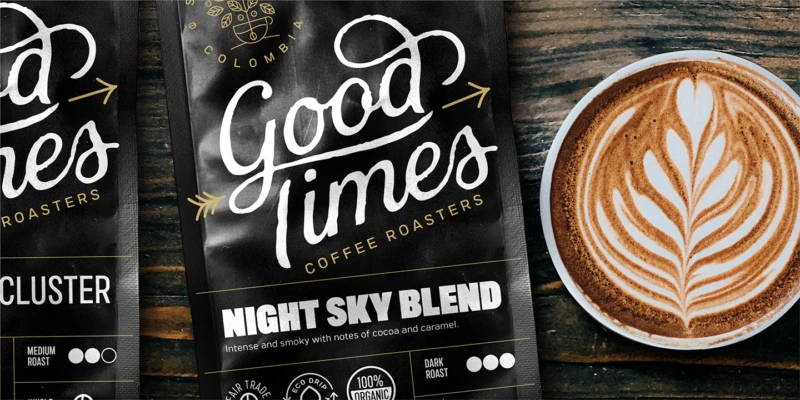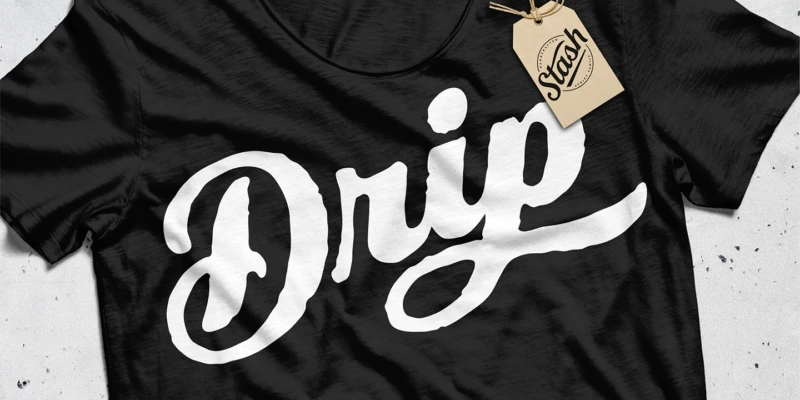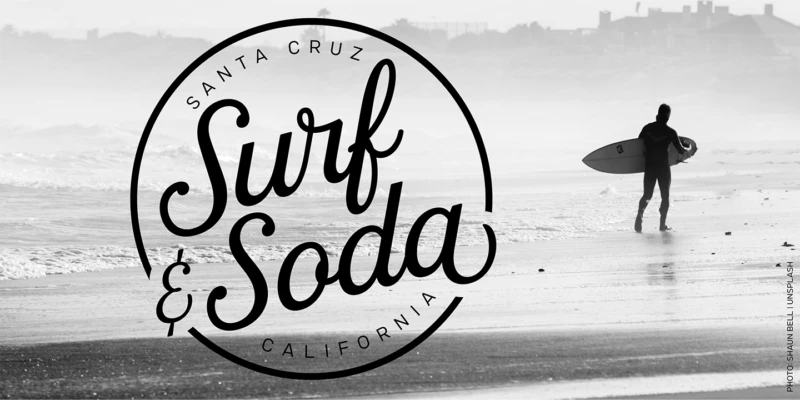
Stash Font Family
Your Stash of fonts for that custom hand-lettered look. Stash comes in two styles; a clean modern and a worn vintage look, each in five weights. Stash features hundreds of alternates to make every setting look crafted and unique. The fonts are programmed with a smart set of contextual alternates that handle initial and final forms, as well as a few connecting pairs, making each word look polished. Tails and underlines round out the character set. With Stash you can craft solid logotypes with a unique look, set posters and ads, and even run longer lines of copy on packaging. Pick it up for your next craft beer label, chocolate pack, café logo, or good old social media posts!
Stash font by J Foundry — a purple chocolate bar wrapper with the words “Cadbury DAIRY MILK Caramel” in white and yellow, with a small green “Cocoa Life” logo.
Stash font by J Foundry — the words “Good Times” in a connected script, with “Coffee Roasters” below, and a coffee cup icon with leaves and “Colombia” above, on a coffee bag next to a latte with leaf art
Stash font by J Foundry — the word “Drip” in a connected script on a black t-shirt, with a small tag showing the word “Stash” in a similar script
Stash font by J Foundry — a circular logo with the words “Santa Cruz” and “California” in an arc, and “Surf & Soda” in a connected script, all over a black and white photo of a surfer on a beach
Several alternates per character
Vintage texture
Alternates & Swashes
Non-script alternates
Initial Swash forms
Contextual Alternates
Variety of swash lengths
Finishing forms
Stylized ligatures
Baseball tails